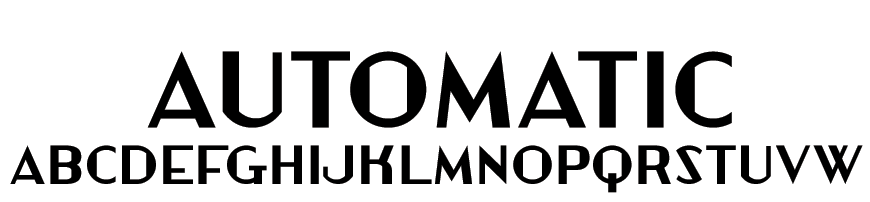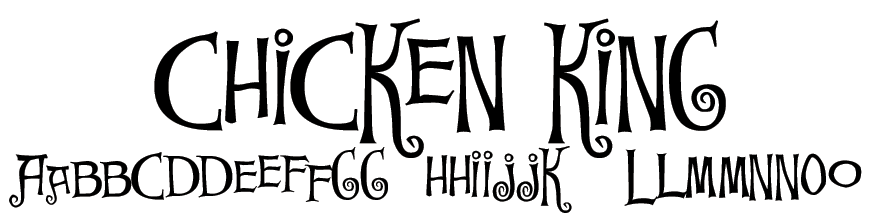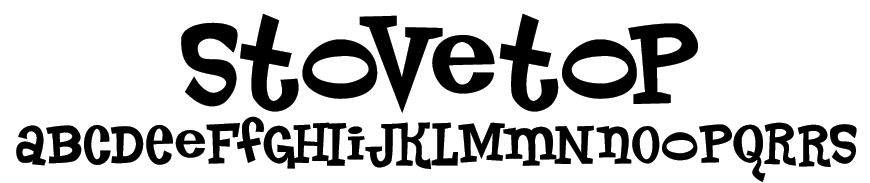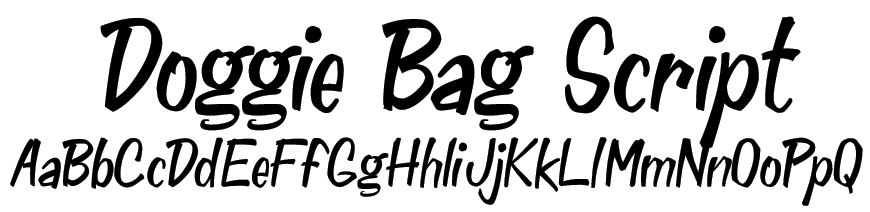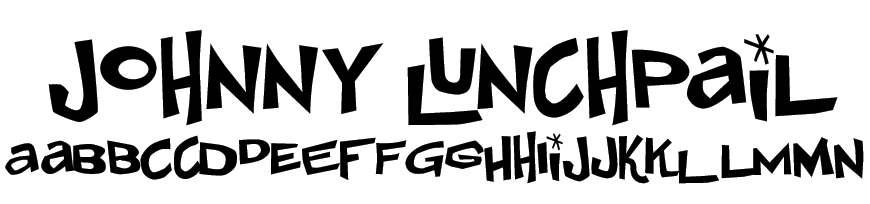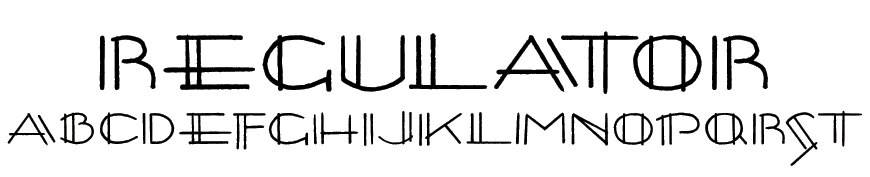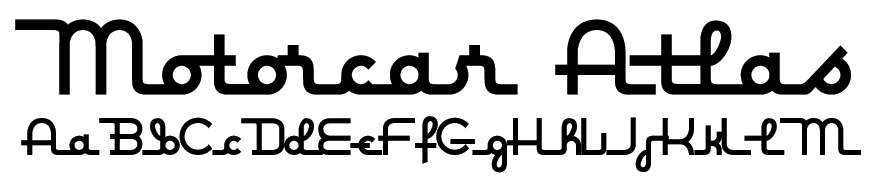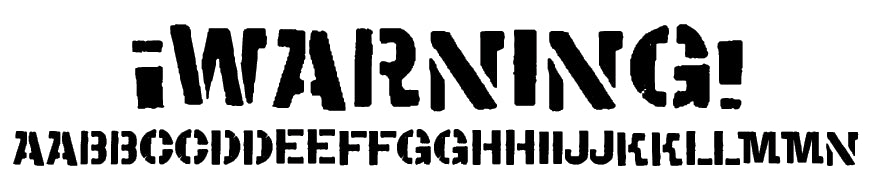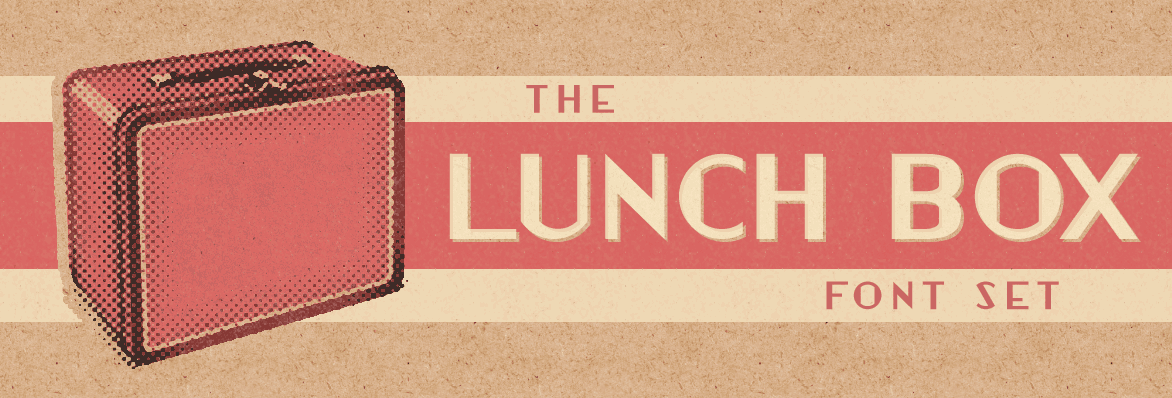
Grab a Lunch Box Font Set and enjoy a tasty selection of retro fonts inspired by 1950s and 1960s American culture! From fun display styles to connecting monoline scripts and Art Deco neon, you'll be sure to enjoy this fine collection!
Lunch Box Font Set